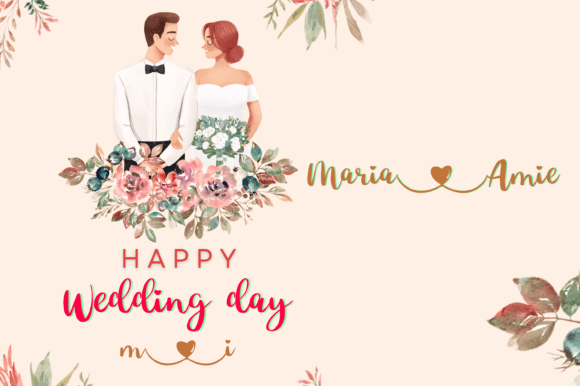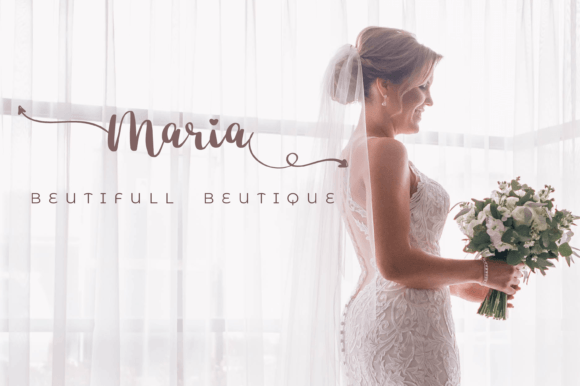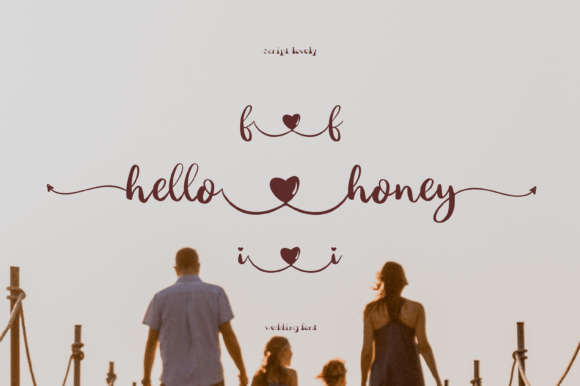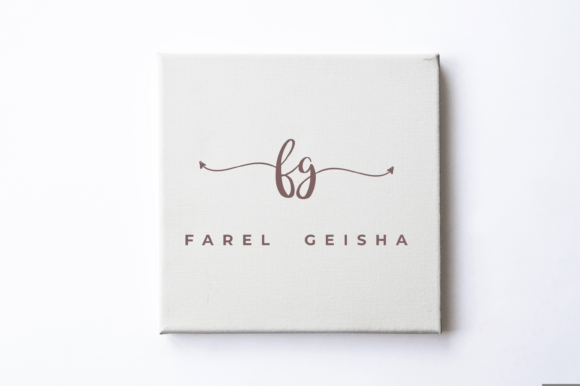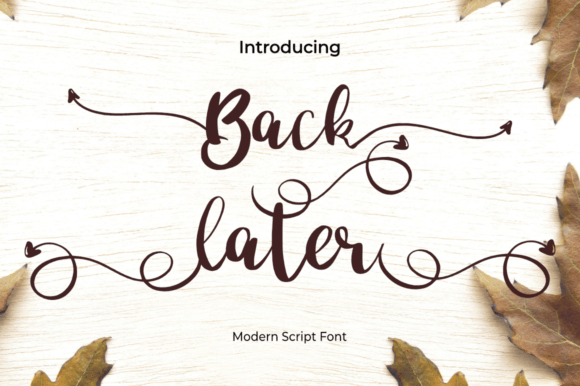
Introducing Back Later Font: A Unique Hand Brush Script and Serif Duo
Are you tired of using the same old fonts in your designs? Look no further! Back Later Font is a refreshing hand brush script and serif duo font that is sure to elevate your creative projects. Created with brush and ink, this typeface is perfect for designers and crafters who want to add a personal touch to their work.
What Makes Back Later Font Special?
Back Later Font is a versatile typeface that combines the elegance of a serif font with the playfulness of a hand brush script. The font is designed to mimic the look of brush and ink, giving it a unique and organic feel. The script and serif duo font is ideal for use in a variety of design projects, including:
- Blog titles and headings
- Wedding elements and stationery
- T-shirts and clothing
- Book covers and book jackets
- Business cards and greeting cards
- Branding and packaging
- Cafe and restaurant signs
- Merchandise and promotional items
Key Features of Back Later Font
Here are some of the key features that make Back Later Font a must-have for designers and crafters:
- Hand brush script and serif duo font: The font combines the elegance of a serif font with the playfulness of a hand brush script.
- Brush and ink design: The font is designed to mimic the look of brush and ink, giving it a unique and organic feel.
- Bold watercolor designs: The font is perfect for use in bold watercolor designs and handwritten styles.
- High-quality design: The font is designed with high-quality and clarity in mind, making it perfect for use in a variety of design projects.
Why Choose Back Later Font?
There are many fonts available for designers and crafters, but Back Later Font stands out from the rest. Here are some reasons why:
- Unique and original design: The font has a unique and original design that will set your work apart from others.
- Versatile: The font is versatile and can be used in a variety of design projects.
- Supports multiple languages: The font supports multiple languages, making it perfect for use in international design projects.
Tips and Tricks for Using Back Later Font
Here are some tips and tricks for using Back Later Font:
- Use it in bold designs: The font is perfect for use in bold designs, such as posters and flyers.
- Pair it with other fonts: The font can be paired with other fonts to create a unique and interesting design.
- Experiment with colors: The font can be used with a variety of colors to create a unique and eye-catching design.
- Use it in digital and print designs: The font can be used in both digital and print designs, making it versatile and convenient.
Back Later Font is a unique and versatile hand brush script and serif duo font that is perfect for designers and crafters. With its brush and ink design, bold watercolor designs, and high-quality design, this font is sure to elevate your creative projects. Whether you’re designing a blog title, poster, wedding element, or merchandise, Back Later Font is a great choice. So why wait? Download Back Later Font today and start creating amazing designs!